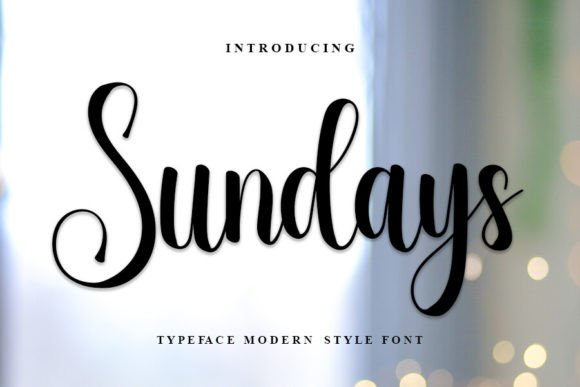
Introducing Sundays Font, the ultimate script font designed by Inermedia STUDIO. Get ready to be captivated by its casual and relaxed handwritten style that will truly elevate your creative projects. Whether you're designing a stunning CV, crafting exquisite wedding invitations, or creating eye-catching social media posts, Sundays Font is your go-to choice.
With its versatile nature, Sundays Font allows you to express your unique personality and creativity effortlessly. Its charming and elegant strokes will add a touch of sophistication to any design, making it perfect for those seeking a font that stands out from the crowd.
The beauty of Sundays Font lies in its ability to evoke emotions and create a strong connection with your audience. Imagine the joy and excitement your clients will feel when they receive a wedding invitation adorned with this enchanting font. It will instantly transport them to a world of romance and elegance.
Not only does Sundays Font excel in visual appeal, but it also understands the importance of functionality. Its impeccable readability ensures that your CV or professional documents are effortlessly understood and leave a lasting impression on potential employers.
But Sundays Font goes beyond just aesthetics and functionality. It's a font that tells a story, evoking a sense of authenticity and creativity. It brings your words to life, making them resonate deeply with your audience. Let your words dance across the page, leaving an indelible mark in the minds and hearts of those who read them.
In conclusion, Sundays Font is not just a font; it's an experience. It's the perfect blend of style, versatility, and emotional connection. So why settle for ordinary when you can have extraordinary? Transform your designs into masterpieces with Sundays Font and watch as your creations leave a lasting impression on all who behold them.